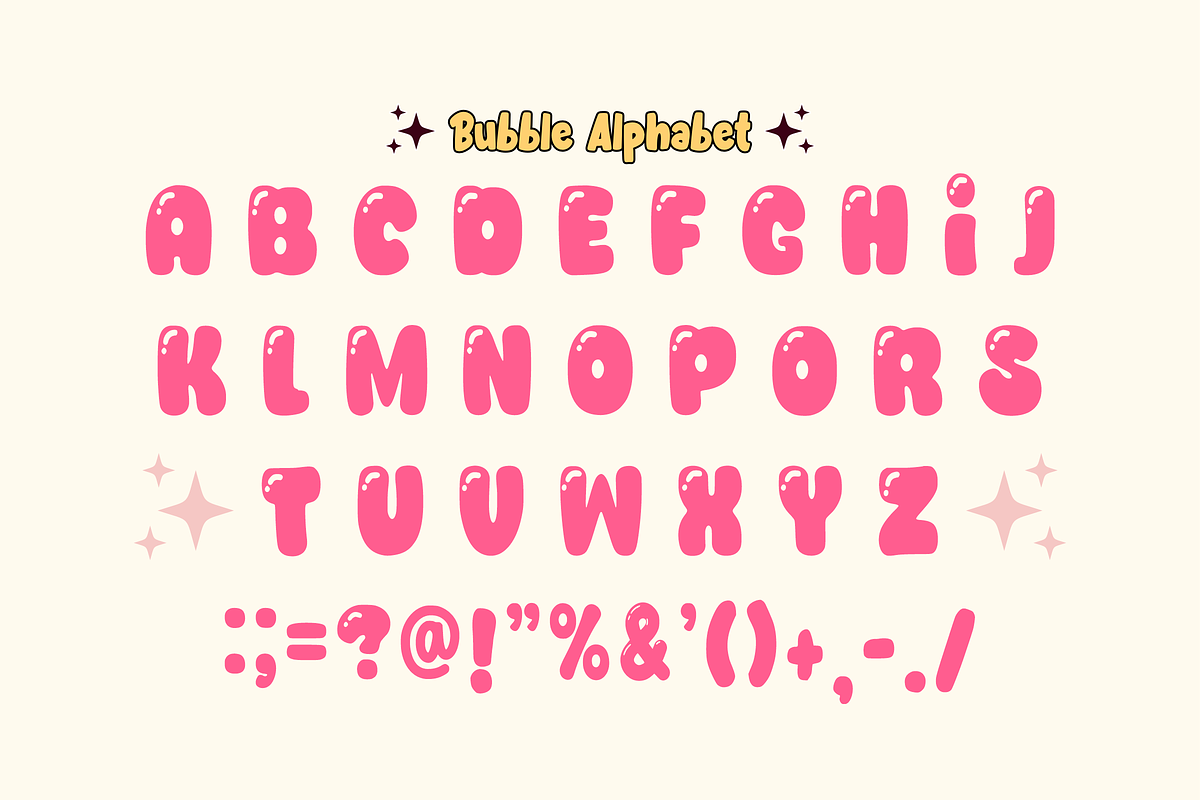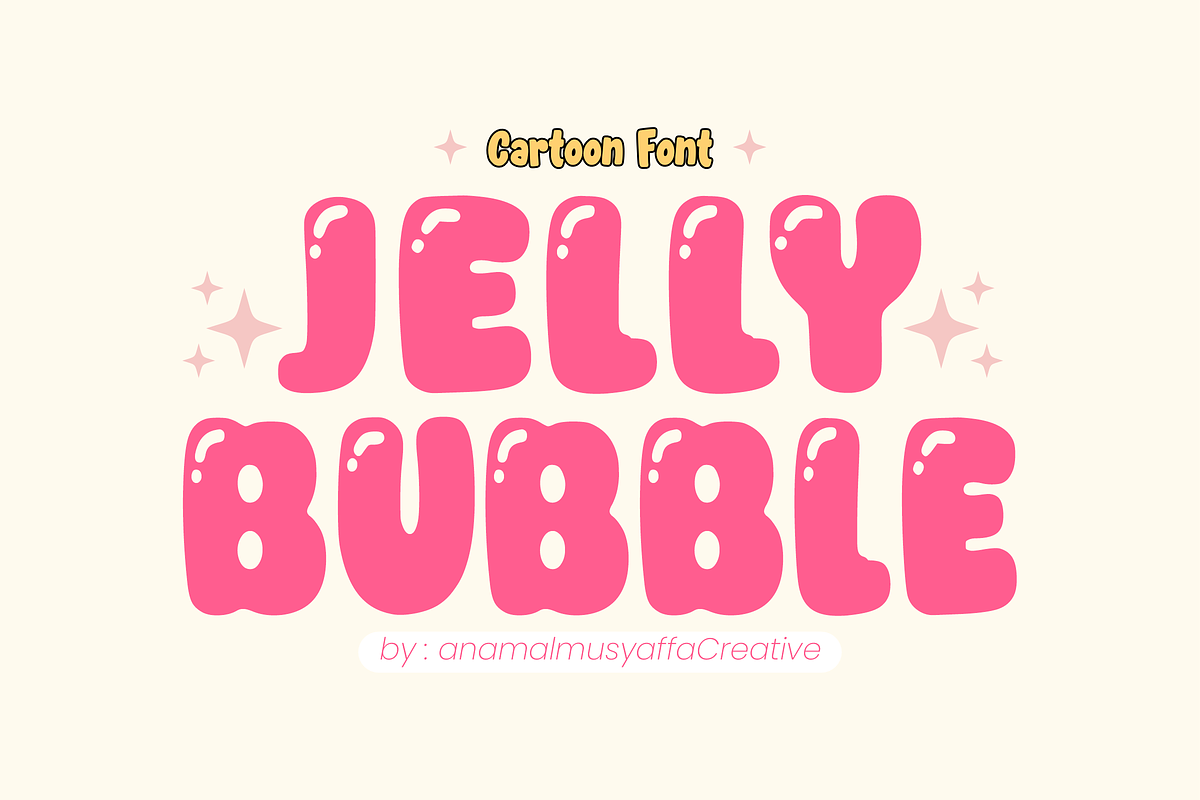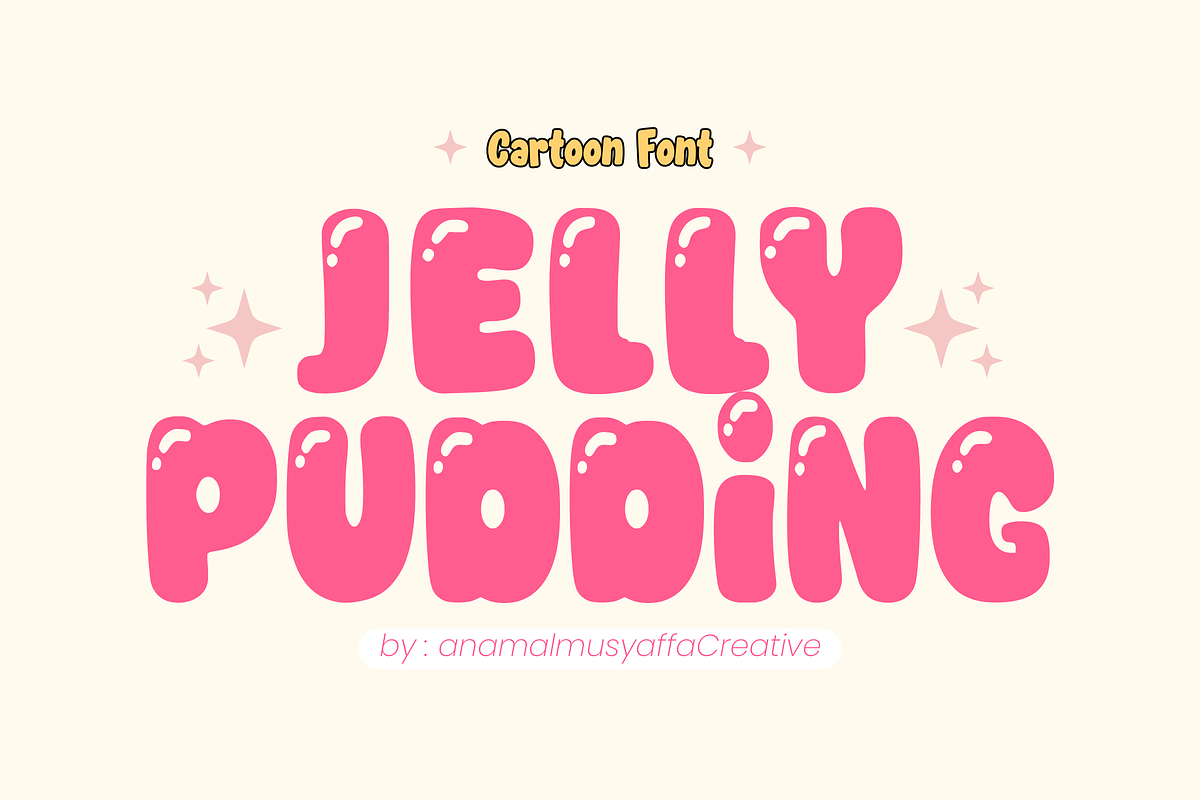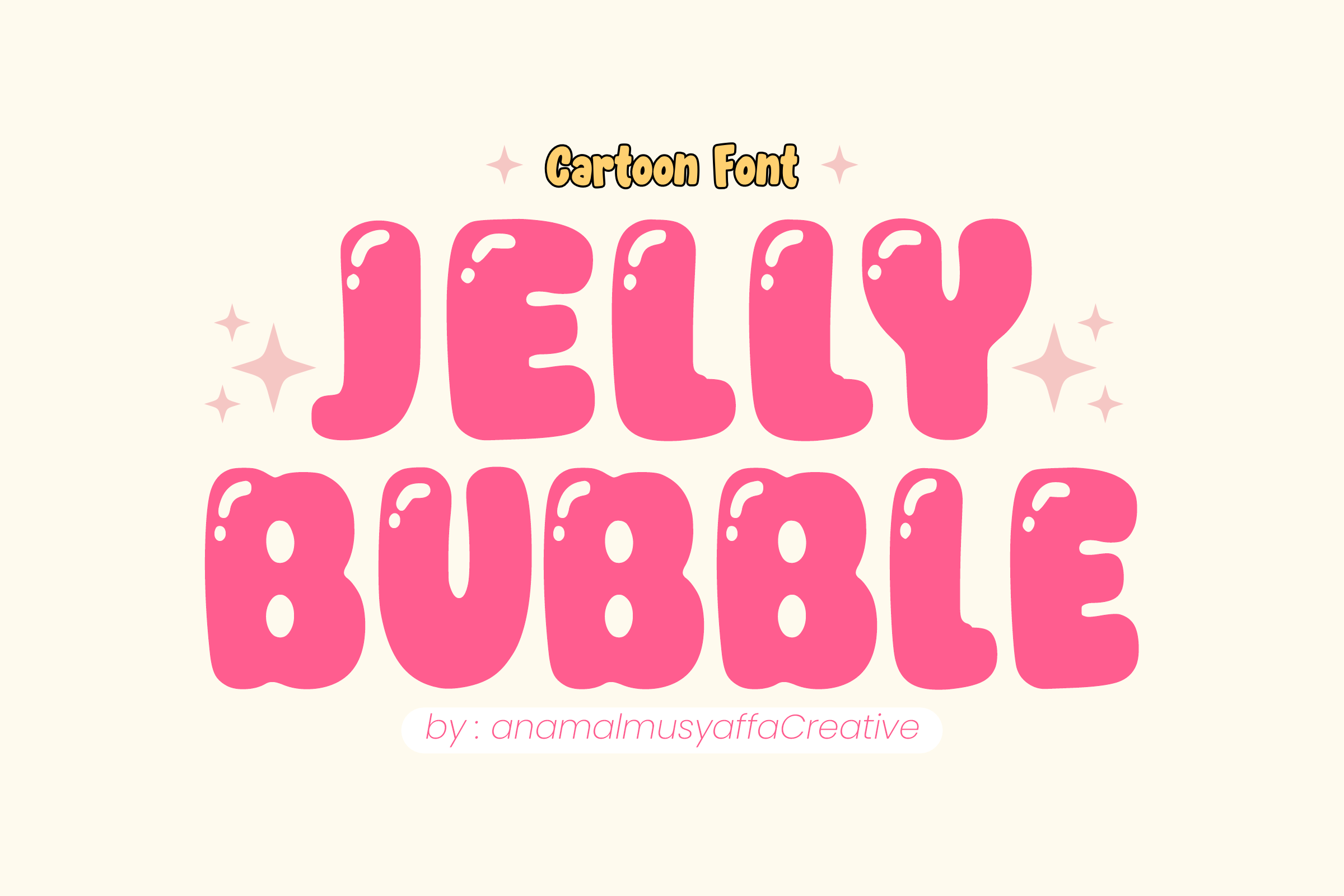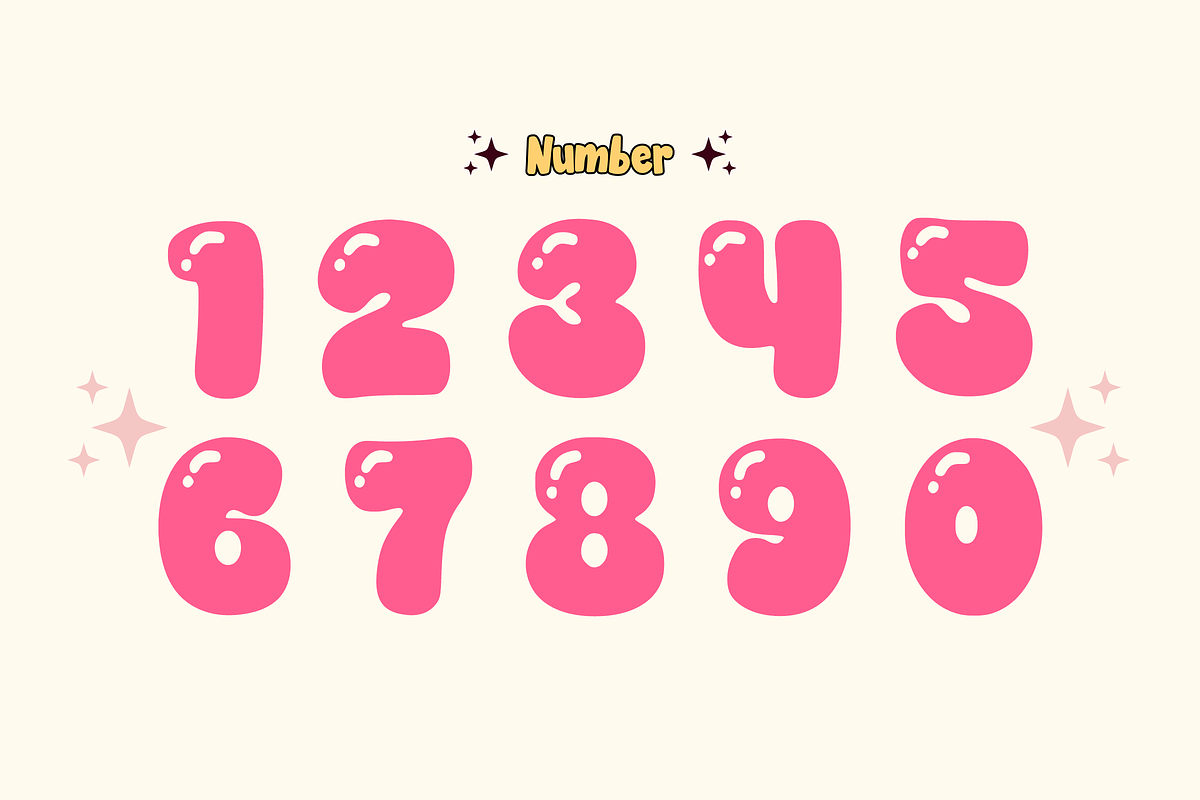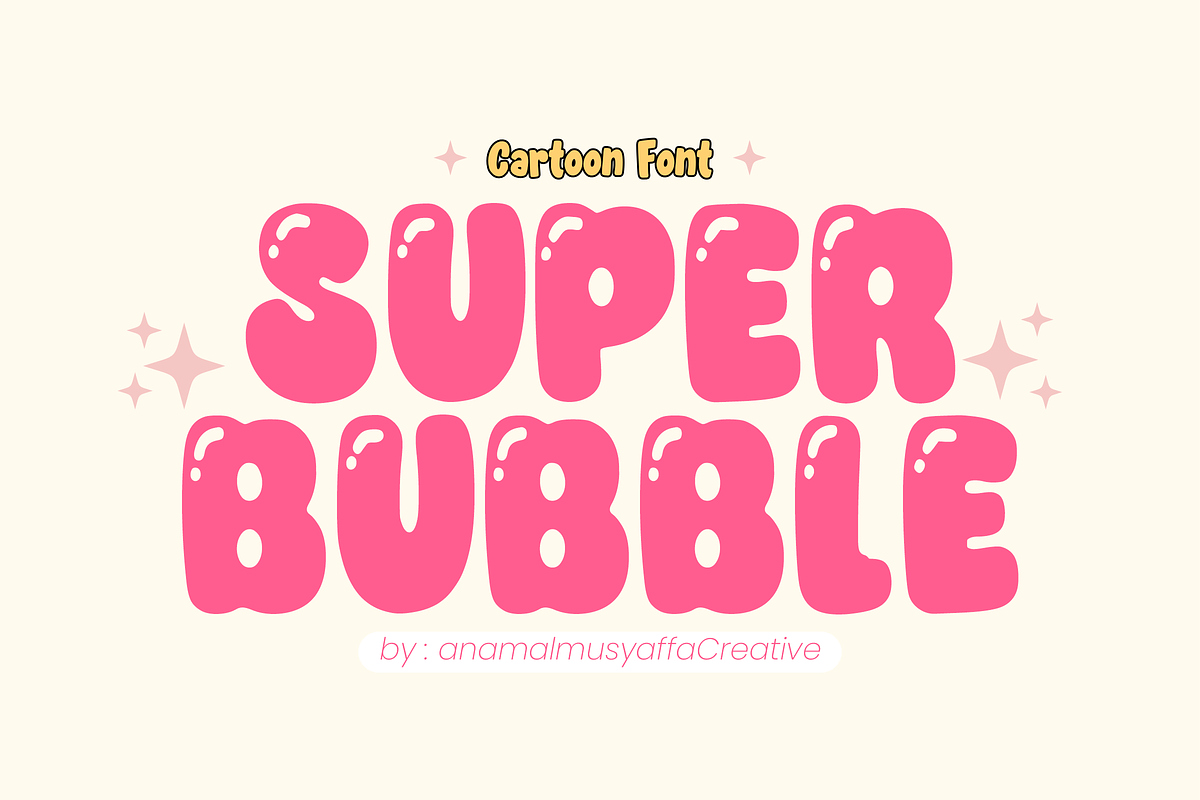
Jelly Bubble - Bubble Font Types
🍬 Jelly Bubble - Sweet & Squishy Display Font 🫧 Get ready for some squishy fun with Jelly Bubble! This ultra-bouncy display font is designed to look like delicious, wobbly jelly. Featuring thick, rounded characters with a glossy "sticker-style" outline, it brings a cheerful and high-energy vibe to any creative project.
If you’re looking for a font that is soft, playful, and has a massive "pop" factor, Jelly Bubble is the sweet treat your design toolkit needs!
🌟 Key Features: 🍮 Bouncy Uppercase: Super chunky, cloud-like letters with a fun liquid rhythm.
🔢 Numbers 0-9: Perfectly rounded numerals for ages, dates, and prices.
✨ Simple Symbols: Essential punctuation to add more "flavor" to your text.
Give your designs a delicious bounce with the Jelly Bubble font!